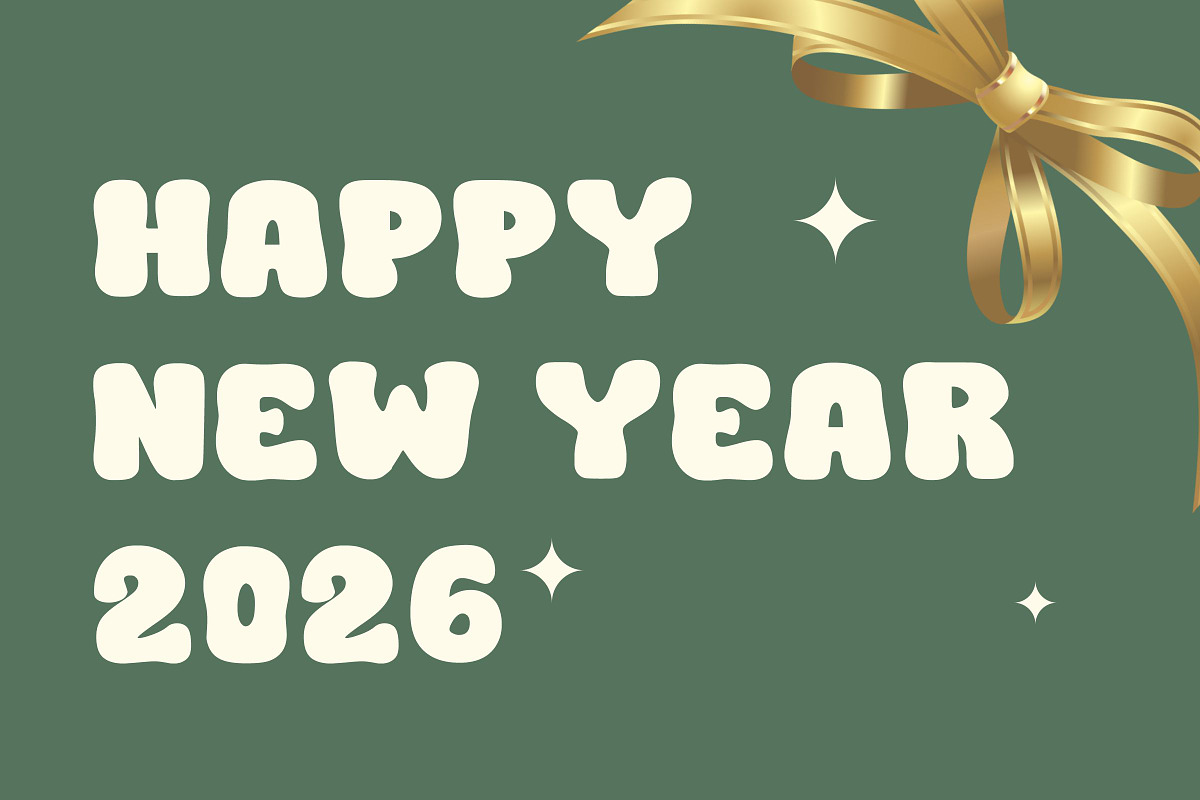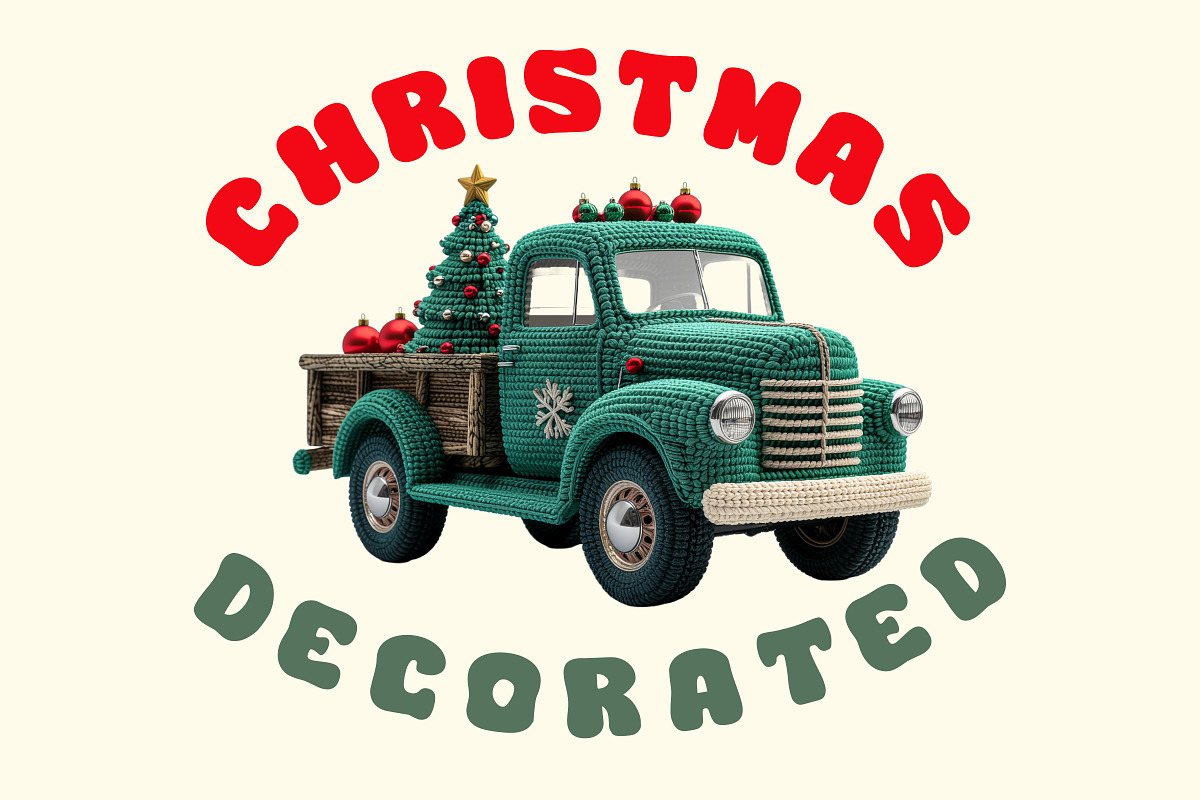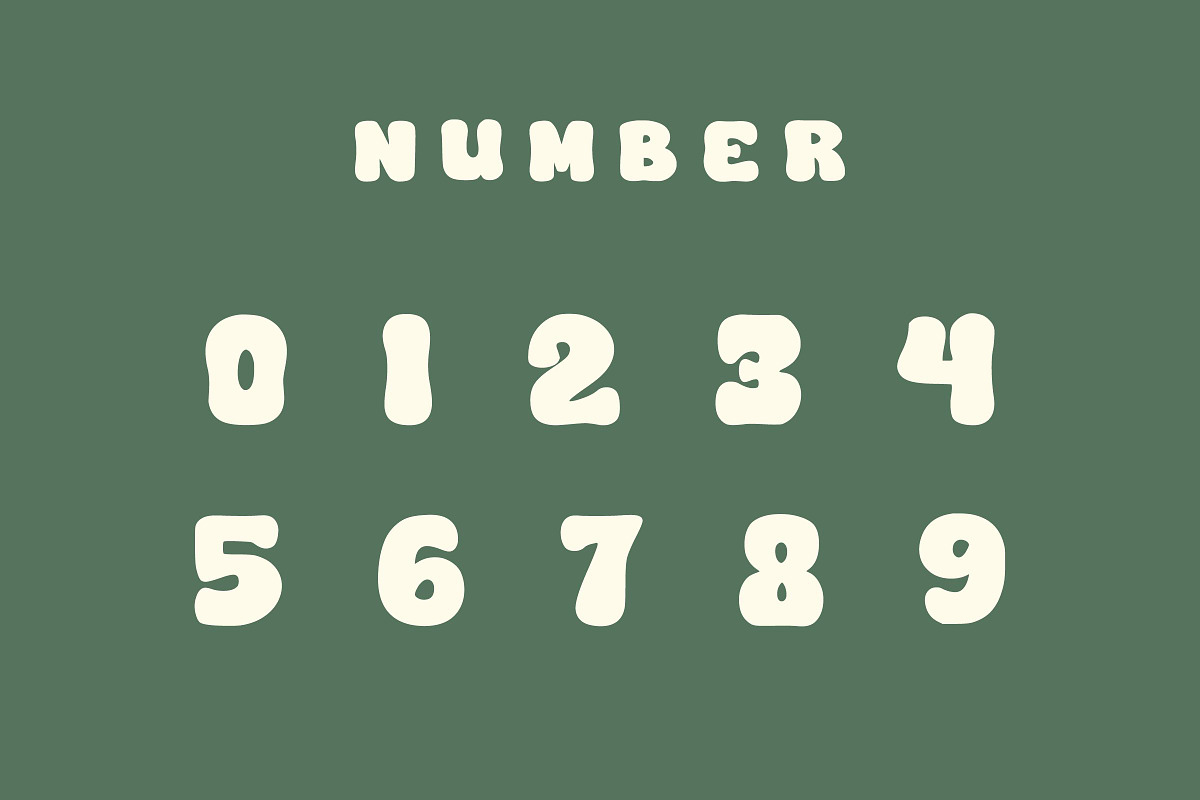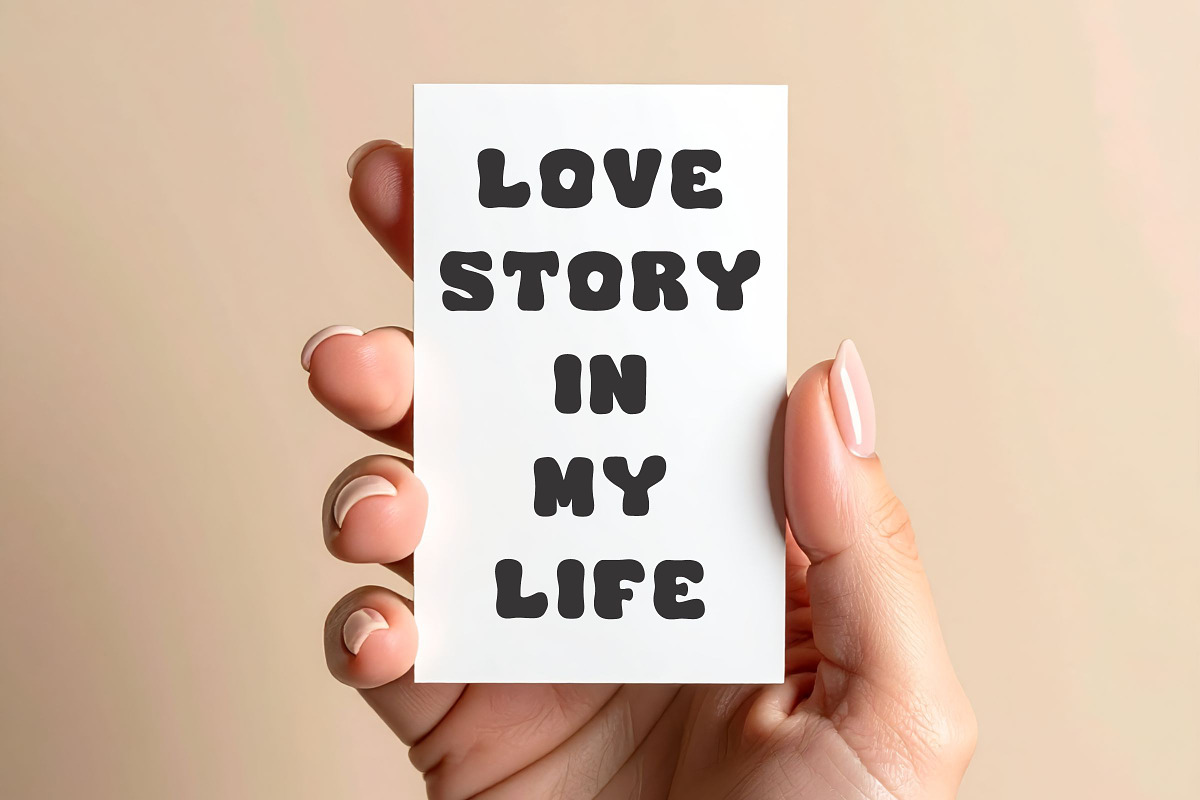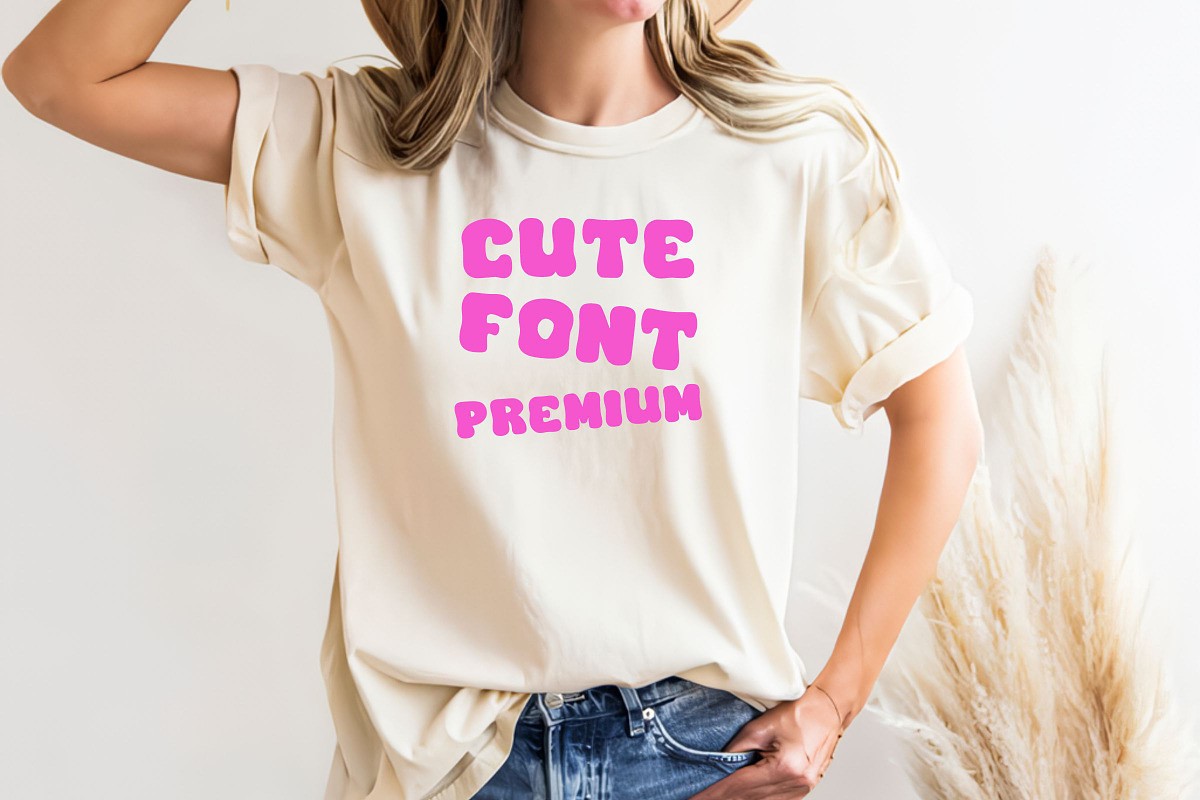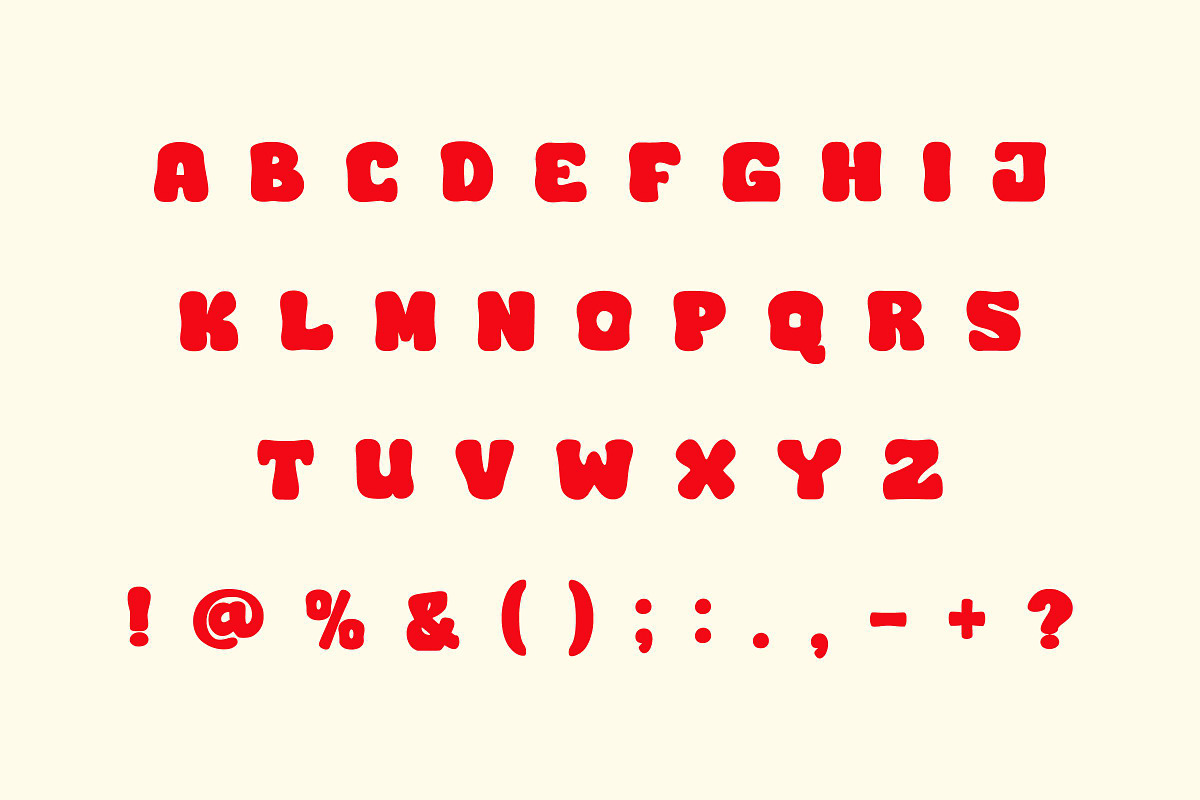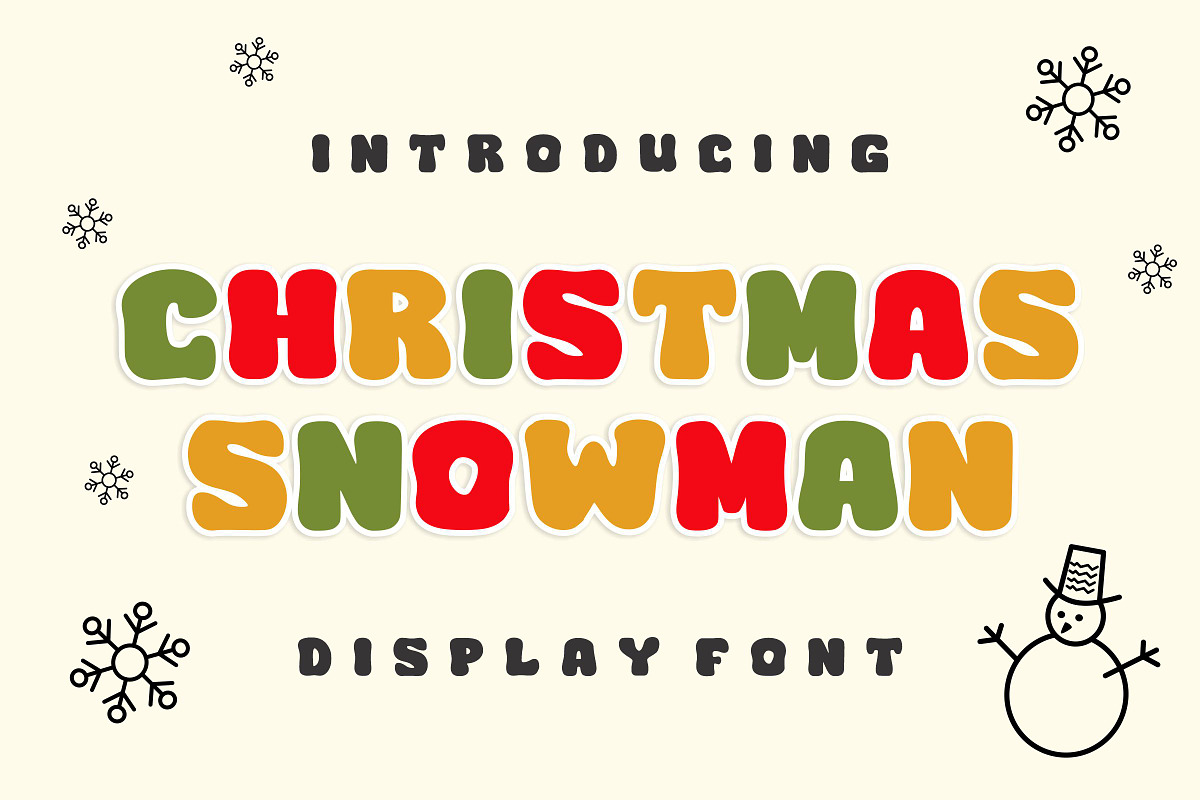
Christmas Snowman
Christmas Snowman – A Bouncy Display Font
Christmas Snowman is a wonderfully chunky and bouncy display font, capturing the playful, rotund feel of a winter character and instantly infusing designs with holiday cheer.
This bold Christmas Snowman font features heavy, rounded letterforms that look fantastic in layered color combinations, perfect for eye-catching holiday graphics and product packaging. The charming, irregular baseline gives the Christmas Snowman typeface an energetic, hand-drawn quality, making it ideal for creating custom seasonal apparel, fun greeting cards, and adorable classroom or party decorations.